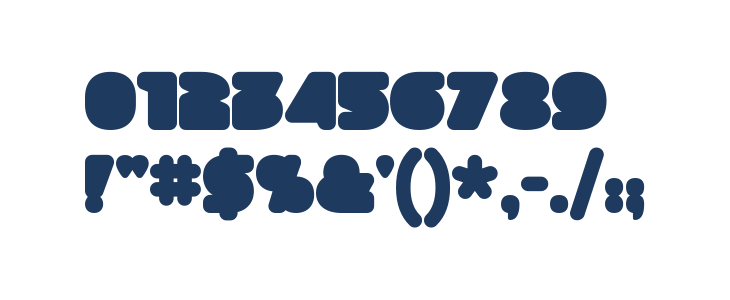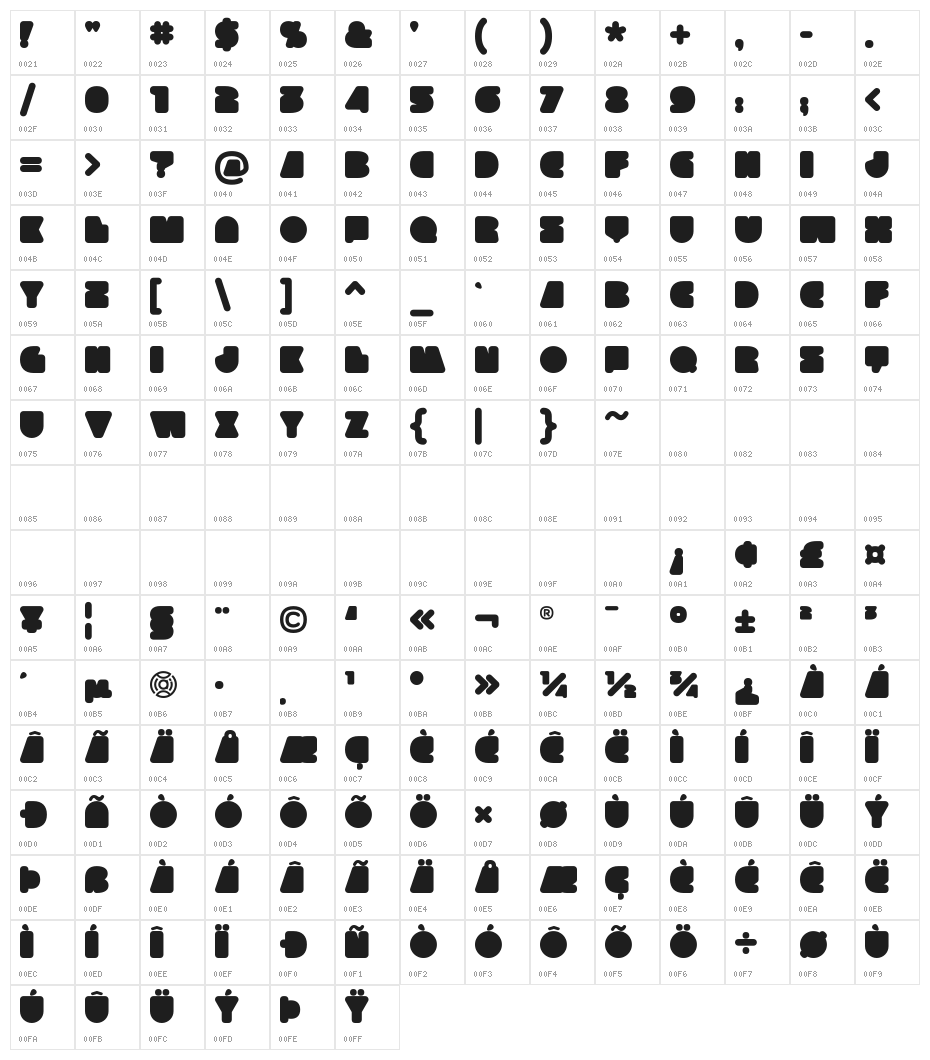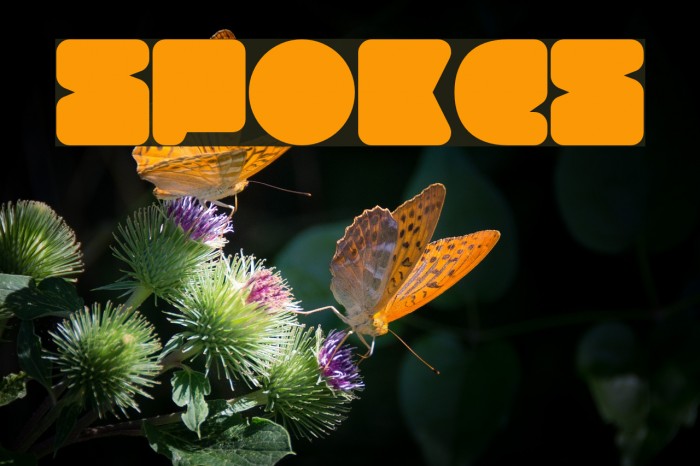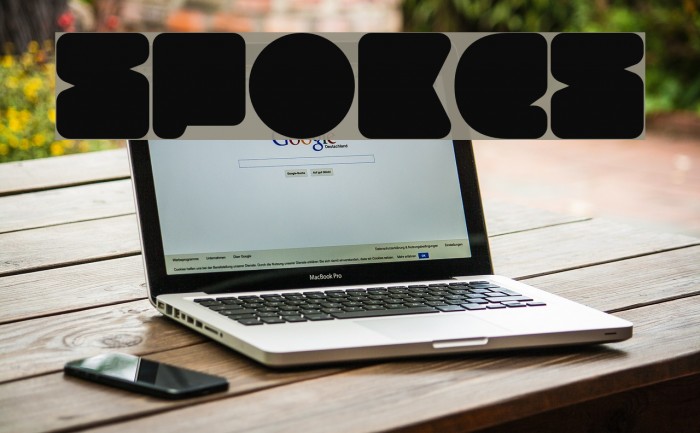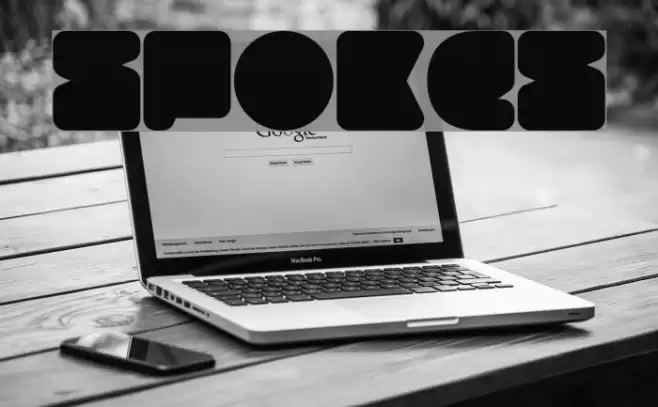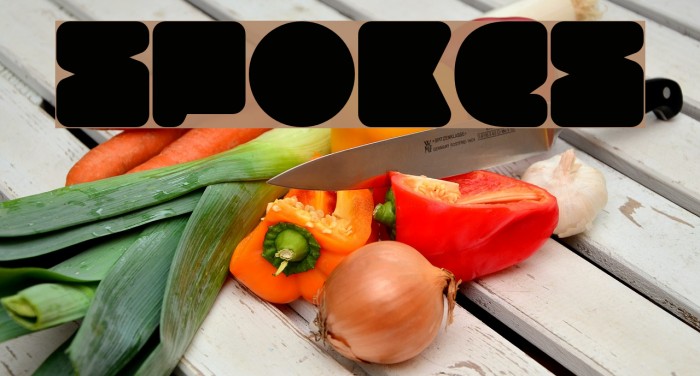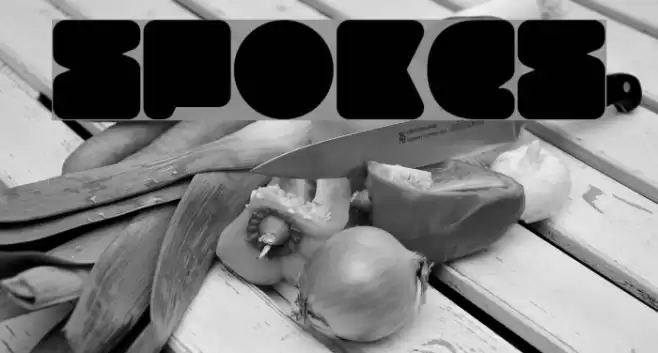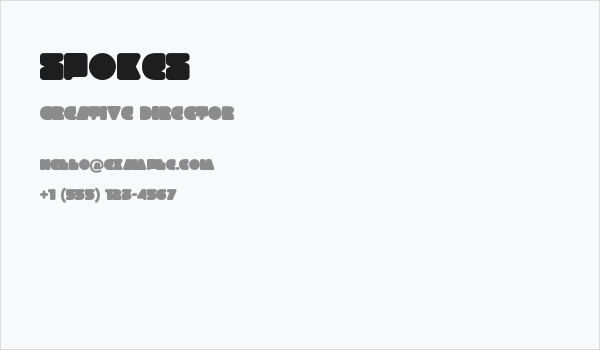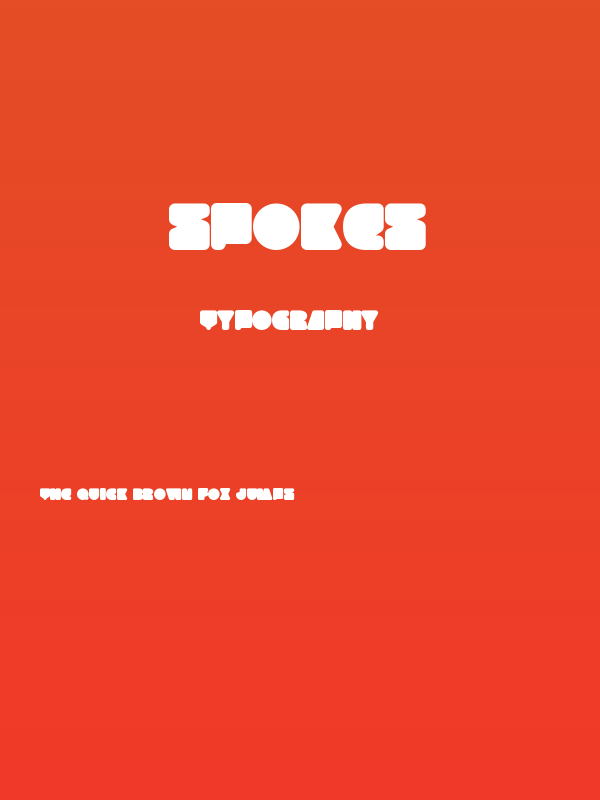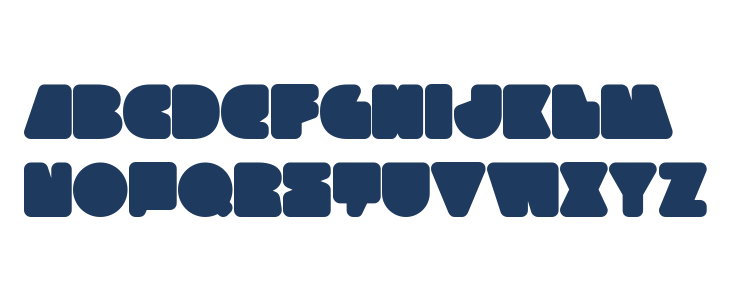
Spokes Font
Spokes Description
This font features a bold, geometric style with rounded edges and a playful, modern aesthetic. The characters are constructed with a uniform thickness, creating a cohesive and visually striking appearance. The rounded forms and consistent weight give it a friendly and approachable feel, making it suitable for a variety of creative applications. The font's unique design elements, such as the rounded terminals and consistent stroke width, contribute to its distinctive look, making it ideal for projects that require a bold and eye-catching typeface.
| Proposed Projects | Ideal for branding, posters, headlines, and any design project that requires a bold and modern typeface. |